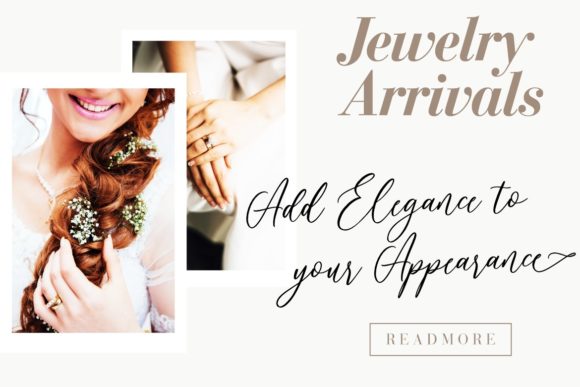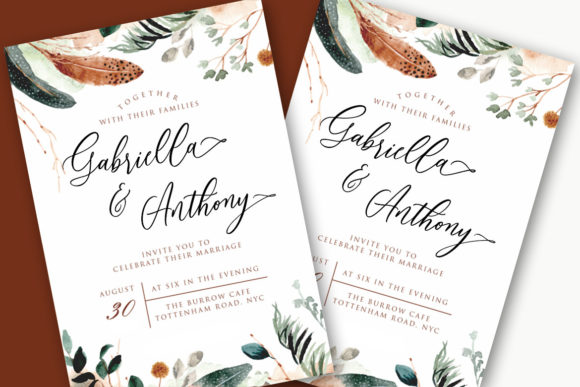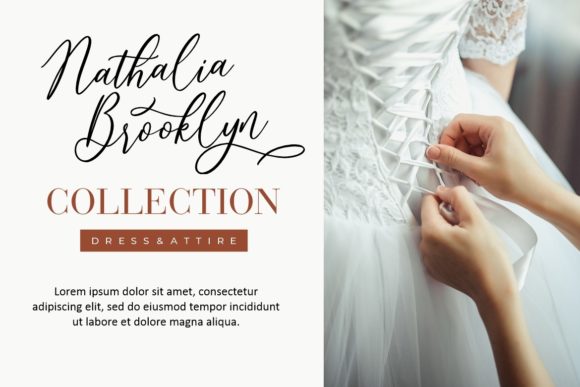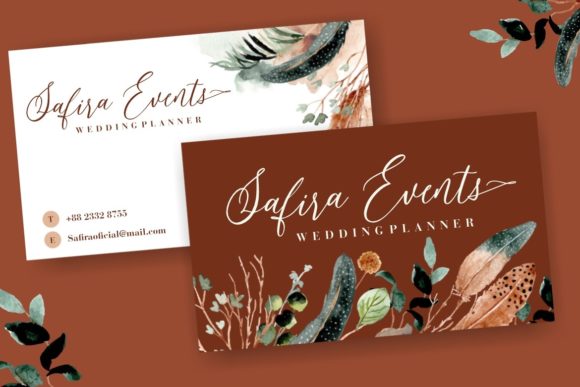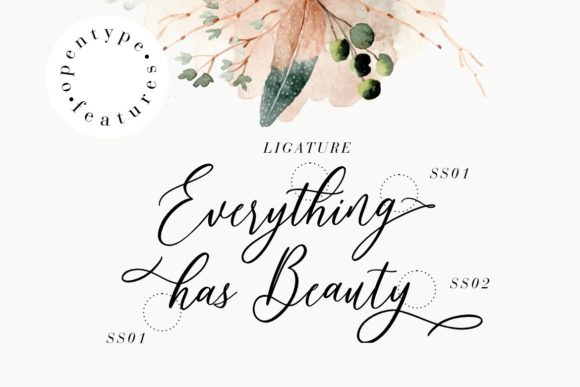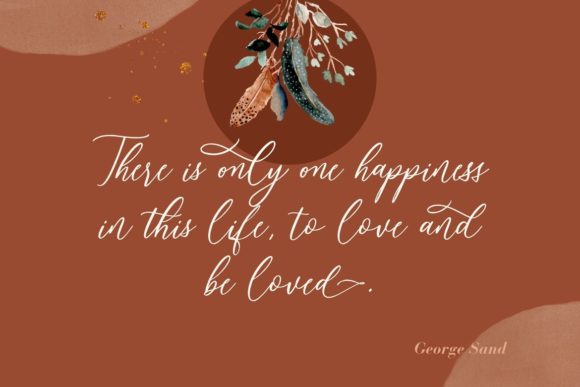
I still remember the frustration of working on a design project, hours spent perfecting every detail, only to be held back by one thing: the font. My client wanted something elegant, luxurious, and unique, but I just couldn’t seem to find the right fit. That was until I stumbled upon the Heredittary Font – a beautiful, light handwritten font that exceeded my expectations in every way.
A First Impression: What Makes Heredittary Special
Heredittary is more than just a font – it’s an experience. With its unique feel and stunning impact, it adds a luxury spark to any design project. The best part? It’s PUA encoded, making it easy to access all the amazing glyphs and ligatures. Whether you’re a designer, crafter, or creative hobbyist, Heredittary is sure to elevate your work.
So, what do I love about Heredittary? Here are a few highlights:
- ✨ Unique and elegant design: Heredittary stands out from the crowd with its light, handwritten feel that’s both sophisticated and luxurious.
- ✅ Easy to use: The PUA encoding makes it simple to access all the glyphs and ligatures, even for those who aren’t font experts.
- 💫 Highly versatile: From branding and advertising to packaging and invitations, Heredittary is suitable for a wide range of design projects.
And, like any font, it’s not without its quirks:
- 🤔 Limited availability of certain characters: While Heredittary has a wide range of glyphs and ligatures, some users may find that certain characters are not available.
- ⚠️ May not be suitable for body text: Due to its light and elegant design, Heredittary may not be the best choice for body text or long-form content.
The Story Behind Heredittary: Designer Inspiration
The story behind Heredittary is one of passion and creativity. While the actual designer is unknown, it’s clear that they poured their heart and soul into creating a font that’s both beautiful and functional. Whether inspired by classic typography or modern design trends, Heredittary is a true masterpiece.
| What is Heredittary Font? | Heredittary Font is a beautiful, light handwritten font with a unique feel and stunning impact. |